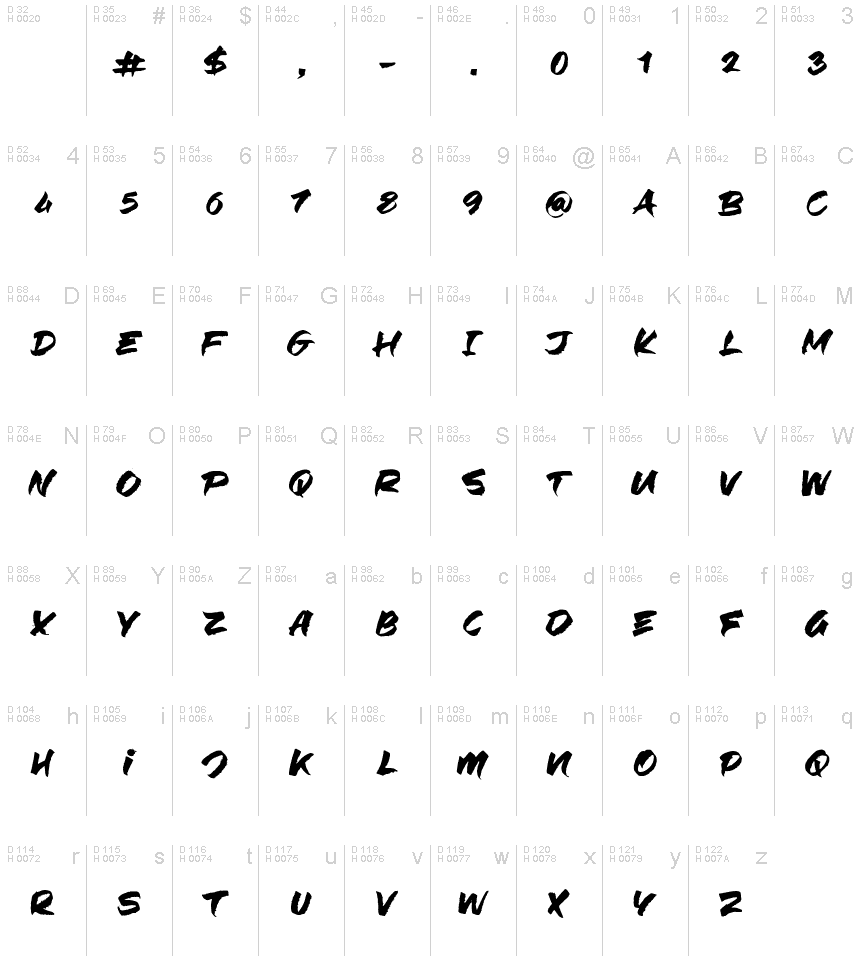
There Must Be A Reason Regular
There Must Be A Reason, a bold and expanded brush font designed by Roland Huse Design, is the perfect choice for projects that require a strong and expressive typographic style. With its unique brush strokes, this font adds a touch of creativity and energy to any design.
Whether it's for logo designs, posters, or even social media graphics, There Must Be A Reason will make your project stand out from the crowd. The alternate versions of uppercase letters provide flexibility and allow for a more natural flow of text.
THERE MUST BE A REASON is a tight spaced all caps font. This is a demo version.